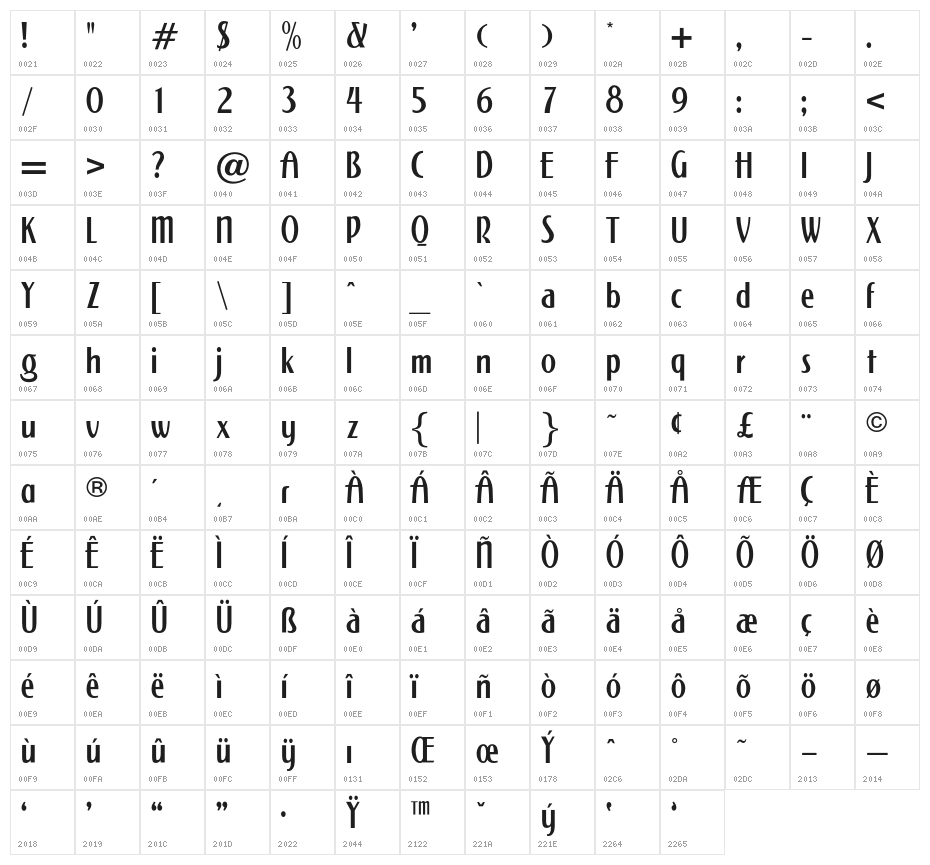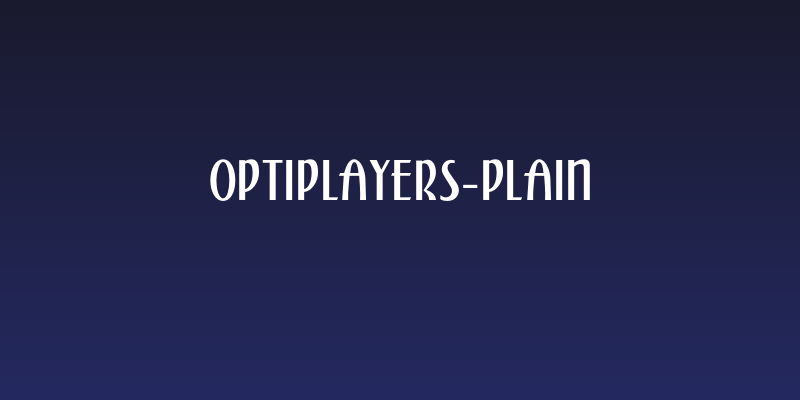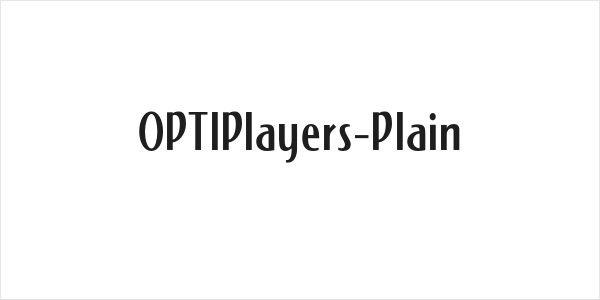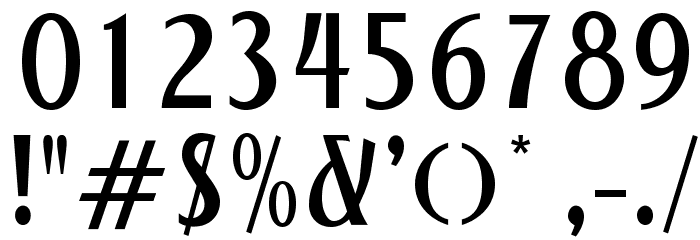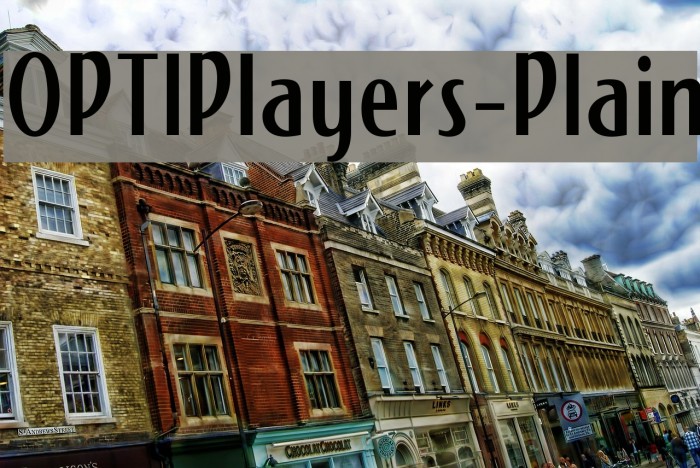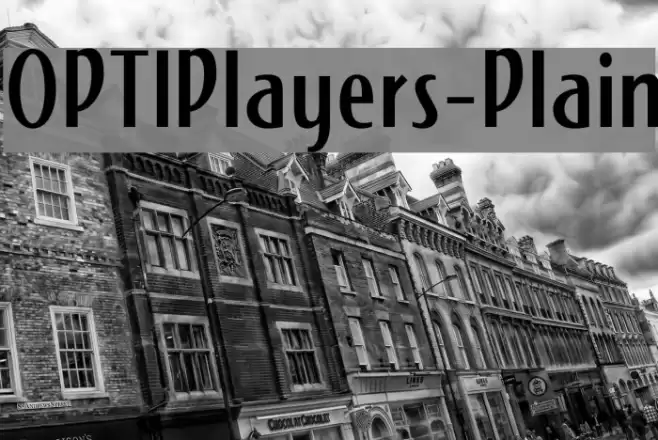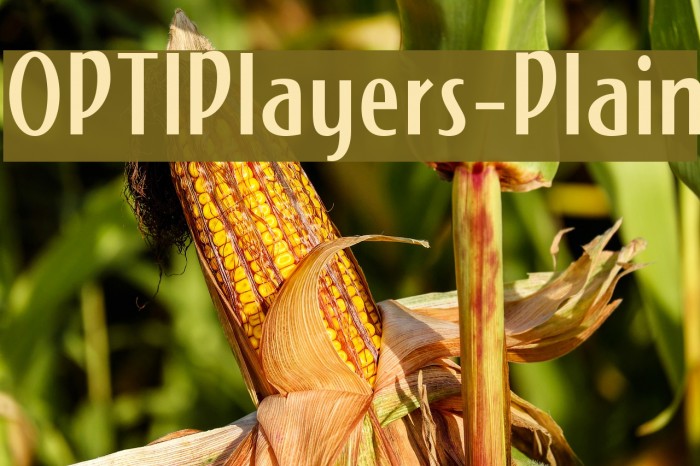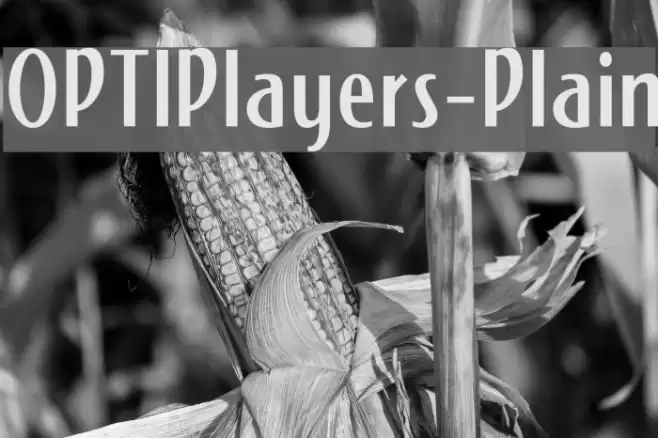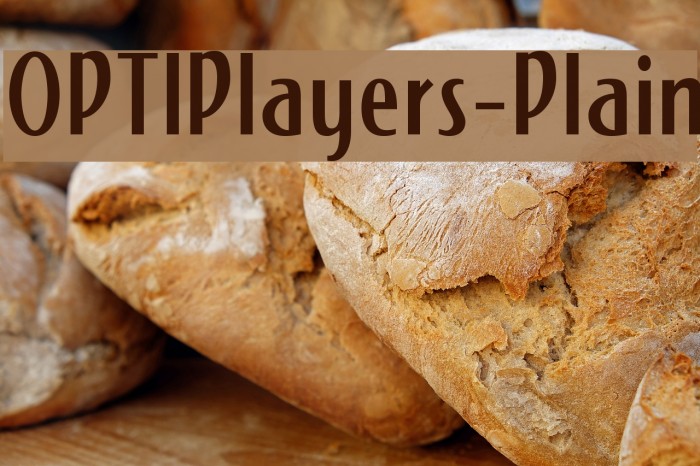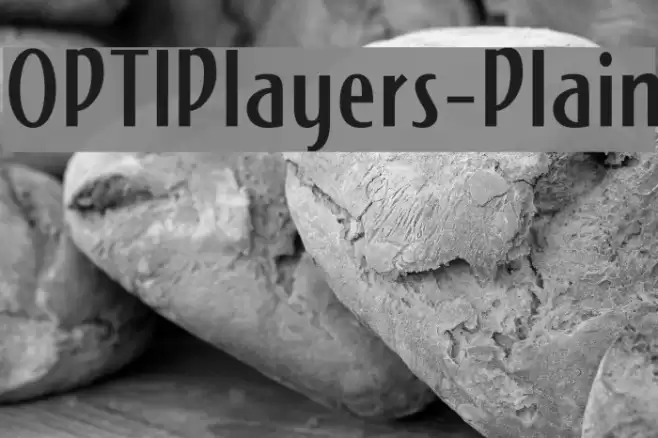
OPTIPlayers-Plain Font
OPTIPlayers-Plain Description
This font features a unique blend of modern and vintage elements, characterized by its tall, narrow letterforms and subtle curves. The uppercase letters have a distinct art deco influence, with elongated verticals and slightly flared terminals. The lowercase letters maintain a consistent style, offering a harmonious balance between readability and decorative flair. The numerals are bold and clear, ensuring legibility, while the special characters add a touch of elegance with their stylized forms. Overall, this font exudes a sophisticated yet approachable aesthetic, making it versatile for various design applications.
| Width | Condensed |
| Overall Style | Modern Vintage |
| Proposed Projects | Ideal for branding, posters, and editorial design where a touch of elegance and modernity is desired. |